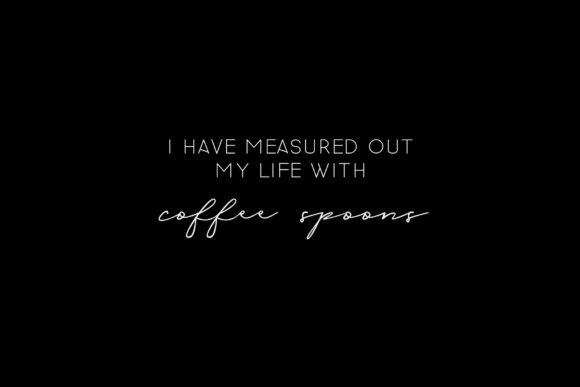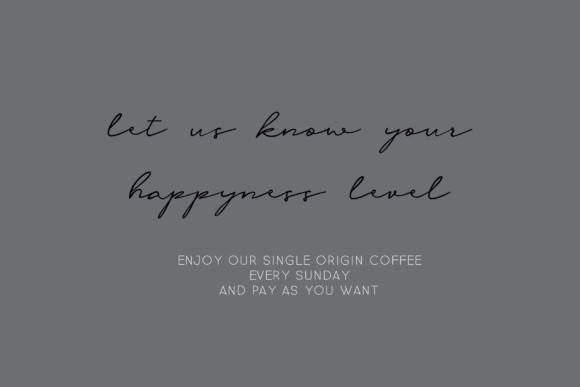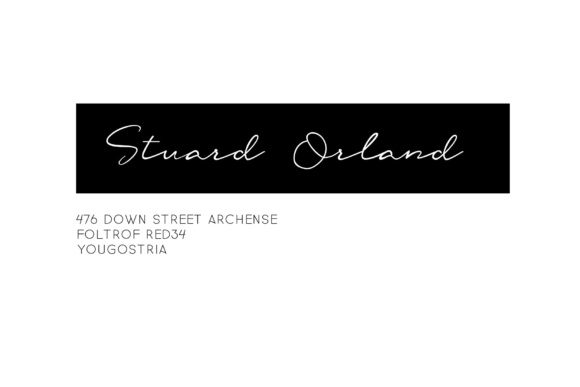
Introduction to Revilo Duo Font
The Revilo Duo is a modern, stylish font duo.
It consists out of a neat thin sans serif, Revilo, and a playful flowing script, Oliver Quin .
Key Features of Revilo Duo Font
Why Choose Revilo Duo Font?